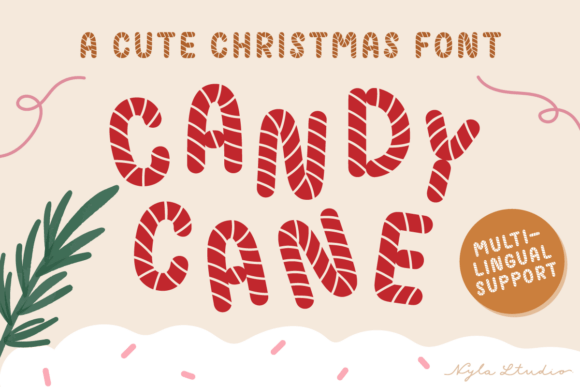
The Magic of Candy Cane Font: A Designer’s Holiday Delight
Ah, the holiday season. A time for joy, giving, and creating. As designers, we’re often tasked with bringing festive cheer to our projects, but sometimes finding the right font can be a challenge. I recall working on a Christmas-themed invitation for a client, determined to create something that captured the essence of the season. After scouring font libraries and marketplaces, I stumbled upon the Candy Cane font. It was love at first sight! 🎉
An Honest Review of Candy Cane Font
- ✨ Cute and Playful Design: The Candy Cane font is a perfect blend of whimsy and festivity, making it ideal for Christmas projects, retro designs, and more.
- ✅ Versatility: This font is incredibly versatile and can be used for a wide range of applications, from shirts and mugs to stickers and posters.
- 🎉 Easy to Read: Despite its playful nature, the font remains clear and easy to read, even at smaller sizes.
While the Candy Cane font is fantastic, there are a few things to keep in mind:
- ⚠️ Limited Use Outside of Holiday Season: The font’s holiday theme might limit its use outside of the Christmas season.
- 🤔 Some Characters Might Require Adjustment: Certain characters or glyphs might require manual adjustment to fit perfectly in your design.
The Backstory of Candy Cane Font
The Candy Cane font was designed with the holiday season in mind. Inspired by the classic colors and shapes of Christmas decorations, the creator aimed to craft a font that was both fun and functional. Whether you’re a designer looking for a unique touch or a crafter seeking to add some personality to your projects, the Candy Cane font is sure to bring a smile to your face.
Q: What type of projects is the Candy Cane font best suited for?
A: The Candy Cane font is perfect for Christmas projects, shirts, retro designs, Christmas invitations, mugs, stickers, playful quotes, posters, logos, greeting cards, packaging, and decorating illustrations.
Q: Is the Candy Cane font available in different styles or weights?
A: The standard version of the Candy Cane font may not offer multiple styles or weights, but some font packages might include variations.